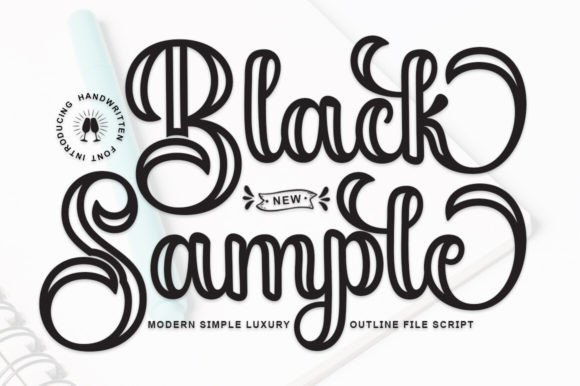
Unlock Elegance with Black Sample Outline Font
Are you on the hunt for a font that exudes charm and sophistication? Look no further than the Black Sample Outline Font. This beautiful script font is a masterful blend of modern style and classic calligraphy, making it the perfect addition to any design project. Whether you’re a seasoned designer or a crafty DIY enthusiast, Black Sample Outline Font is sure to elevate your work to new heights.
The Essence of Black Sample Outline Font
Black Sample Outline Font is more than just a font – it’s a statement piece. Its elegant lines and flowing script evoke the timeless beauty of traditional calligraphy, while its modern outline style gives it a fresh and contemporary feel. This stunning font is perfect for adding a touch of luxury and sophistication to any design project.
One of the best things about Black Sample Outline Font is its versatility. This incredible font can be used for a wide range of design projects, including:
- Branding: Create a lasting impression with a custom logo or brand identity that showcases your unique style.
- Titles and Headings: Add a touch of elegance to your titles and headings, making your content stand out from the crowd.
- Wedding Designs: Make your special day even more unforgettable with beautiful wedding invitations, signs, and decorations featuring Black Sample Outline Font.
- Invitations: Whether it’s a birthday party, baby shower, or graduation celebration, this font is sure to make your invitations shine.
- Signs and Labels: Add a professional touch to your signs and labels, perfect for businesses, events, or DIY projects.
- Logos: Create a custom logo that reflects your brand’s personality and style.
Why Choose Black Sample Outline Font?
With so many fonts to choose from, why should you choose Black Sample Outline Font? Here are just a few reasons why this font stands out from the rest:
- Unique Style: Black Sample Outline Font boasts a distinctive outline style that sets it apart from other script fonts.
- Elegant and Charming: This font exudes elegance and charm, making it perfect for designs that require a touch of sophistication.
- High-Quality Design: With its clear and precise lines, Black Sample Outline Font is designed to look stunning in any context.
- Easy to Use: This font is incredibly easy to use, making it perfect for designers and crafters of all skill levels.
Tips for Using Black Sample Outline Font
To get the most out of Black Sample Outline Font, here are a few tips to keep in mind:
- Pair with Contrasting Fonts: Pair Black Sample Outline Font with a contrasting font to create visual interest and add depth to your design.
- Experiment with Colors: Don’t be afraid to experiment with different colors and textures to add an extra layer of elegance to your design.
- Use it Sparingly: While Black Sample Outline Font is stunning, it can be overwhelming if overused. Use it sparingly to create a lasting impression.
| Font Name | Black Sample Outline Font |
| Author | Diorde Studio |